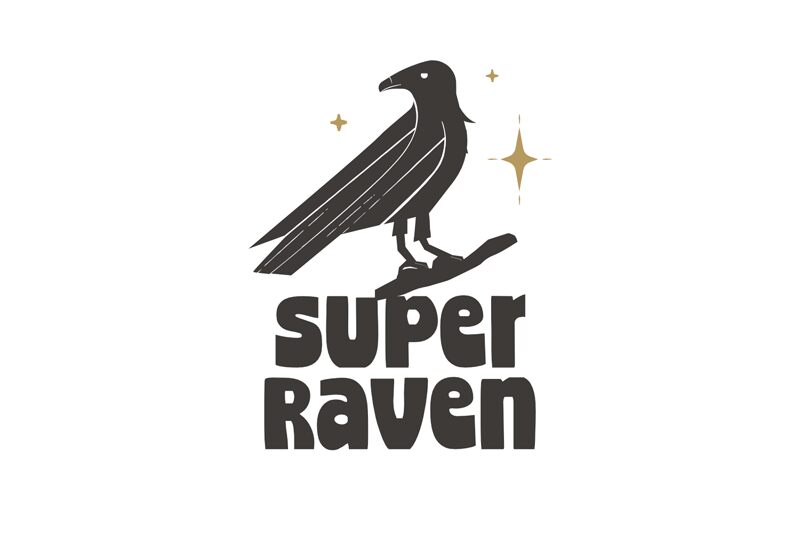
Super Raven
Super Raven, crafted by the talented fsuarez913, soars above the ordinary with its extra-bold, semi-condensed display typeface that boasts sharp angles and an angular design reminiscent of its namesake's sleek form. Its bold and playful character makes it an ideal choice for designers looking to infuse their headlines, logos, and creative projects with a touch of power and distinction.
With Super Raven's distinctive style, your text will command attention in a diverse array of applications – from branding to editorial layouts – ensuring your message not only resonates but also leaves a lasting impression.
Super Raven is a bold, fun font with sharp angles and a unique, angular design. It is inspired by the sleek and powerful form of the raven, and is perfect for creating headlines, logos, and other eye-catching designs.
With Super Raven's distinctive style, your text will command attention in a diverse array of applications – from branding to editorial layouts – ensuring your message not only resonates but also leaves a lasting impression.
Super Raven is a bold, fun font with sharp angles and a unique, angular design. It is inspired by the sleek and powerful form of the raven, and is perfect for creating headlines, logos, and other eye-catching designs.